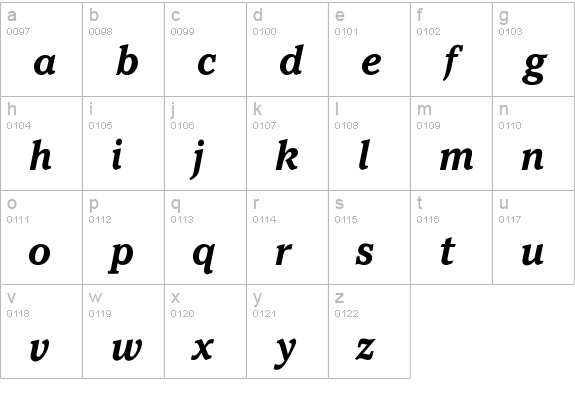
PacellaBoldItalic Font Details
Introducing PacellaBoldItalic font, a stunning typeface that effortlessly combines boldness with elegance. This unique font is perfect for those seeking to make a statement with their design projects. The PacellaBoldItalic font exudes a sense of confidence and sophistication, making it ideal for headlines, logos, and branding materials. With its sleek and slanted letterforms, PacellaBoldItalic offers a modern twist on the traditional italic style. Each character is carefully crafted to maintain legibility while adding a touch of flair to any text. The bold weight of this font ensures that your message will be bold and impactful, making it stand out from the crowd. But what sets PacellaBoldItalic font apart is not just its remarkable design – it is also available for free! That's right, you can download this exceptional font without spending a penny. Simply visit FontsMarket.com and get your hands on this versatile typeface. Whether you're a professional designer or a casual enthusiast, PacellaBoldItalic font is a must-have addition to your font collection. Don't miss out on the opportunity to elevate your designs with the PacellaBoldItalic font. Download it for free today at FontsMarket.com and unleash your creativity like never before.